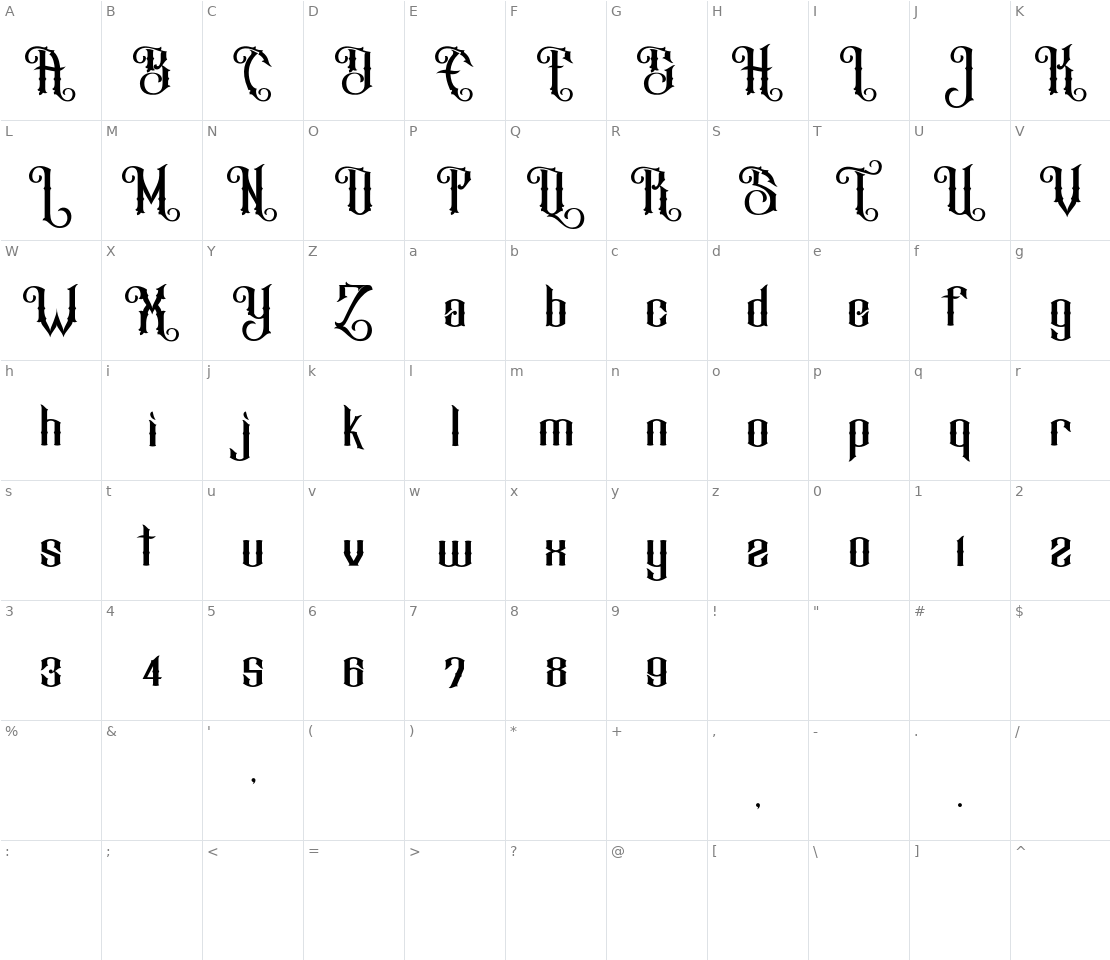
BTX-Renegade
BTX-Renegade is an ornate gothic display face from Betwixt Designs with heavily decorated letterforms that pull from medieval blackletter traditions while pushing into more elaborate, almost theatrical territory. The dark, intricate detailing on each character gives it a brooding, ceremonial quality that works for headlines, album artwork, event branding, and anything steeped in gothic atmosphere. Best kept large so the ornamental flourishes don't collapse into noise.